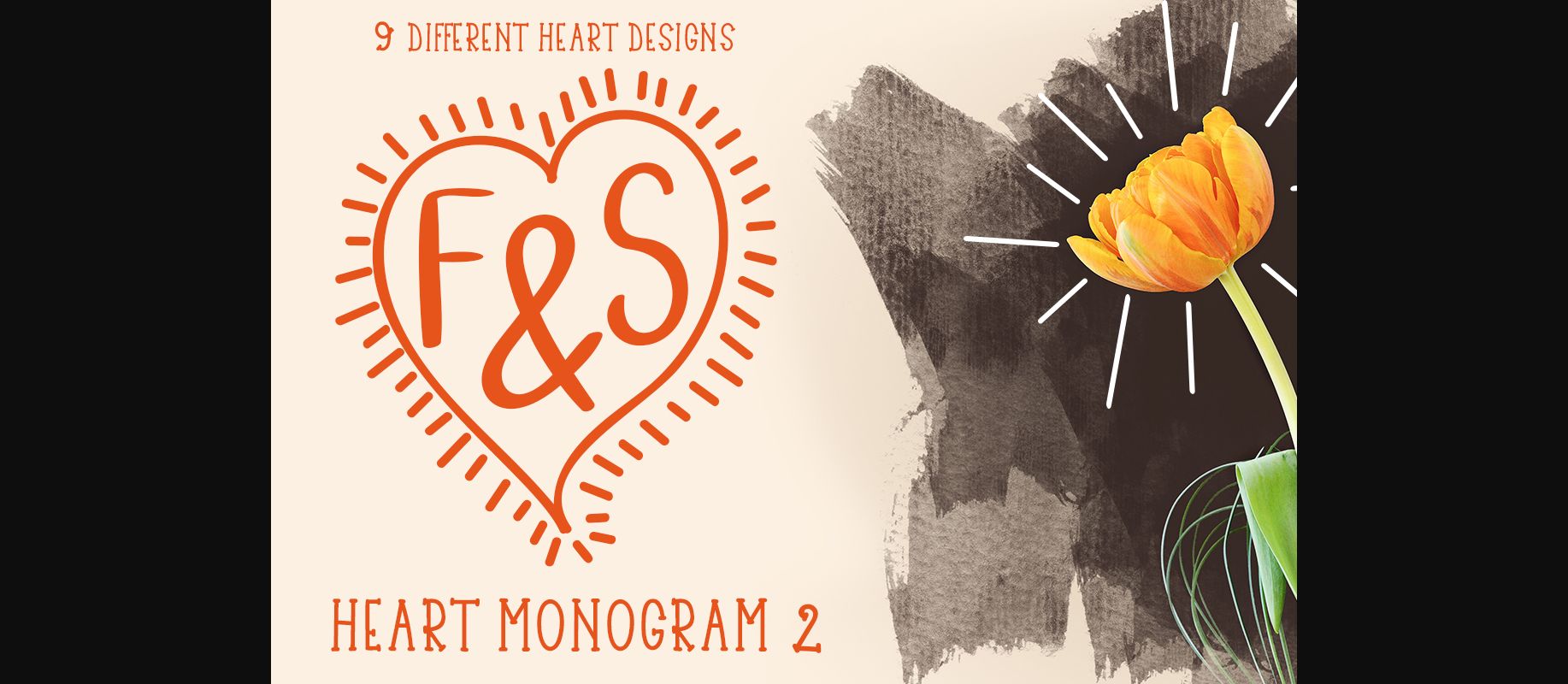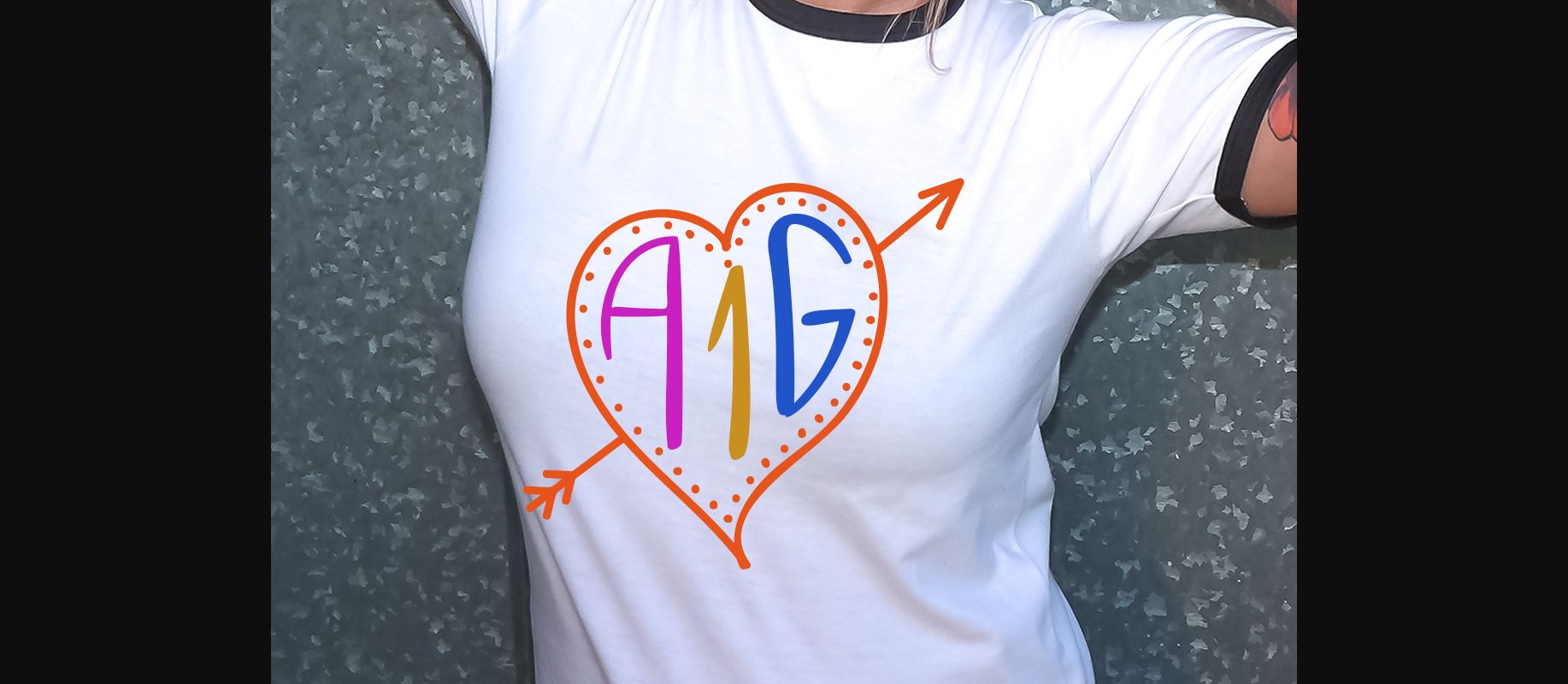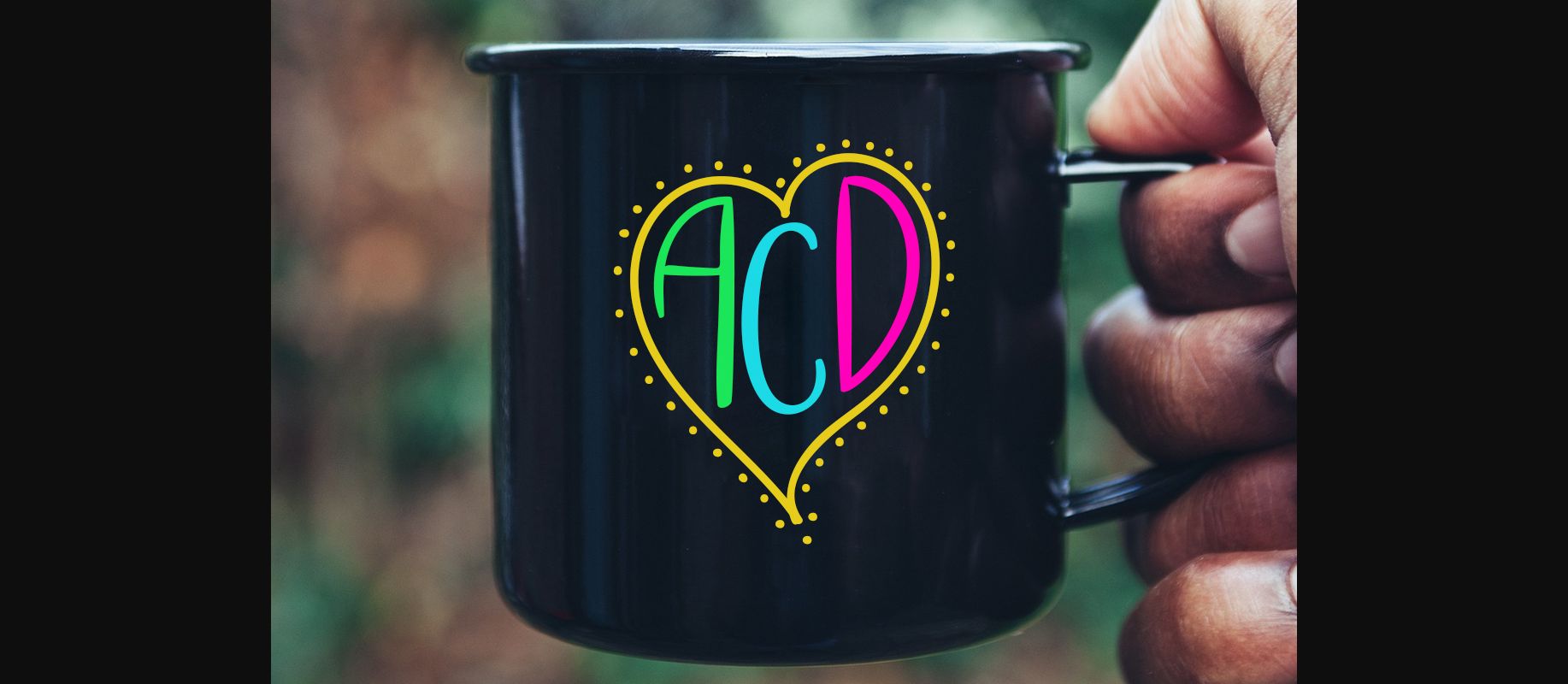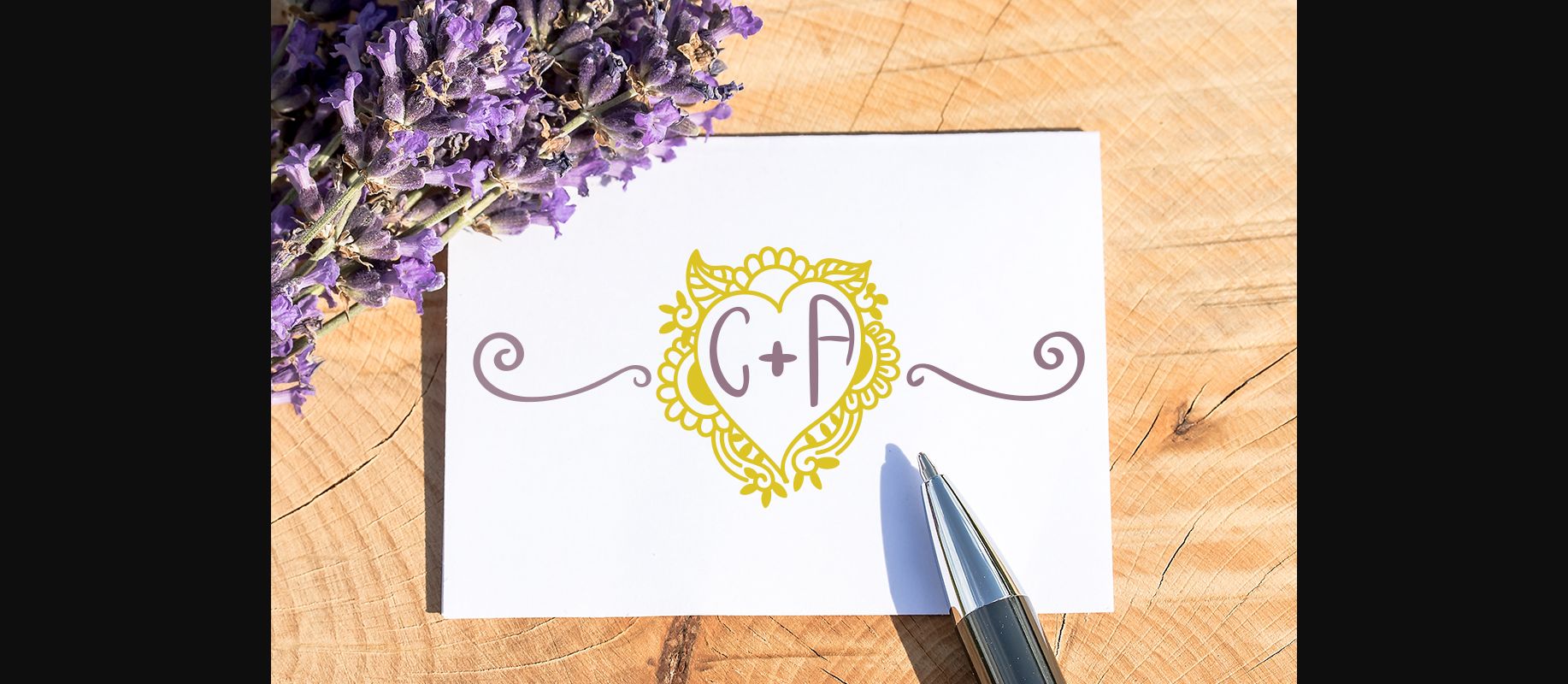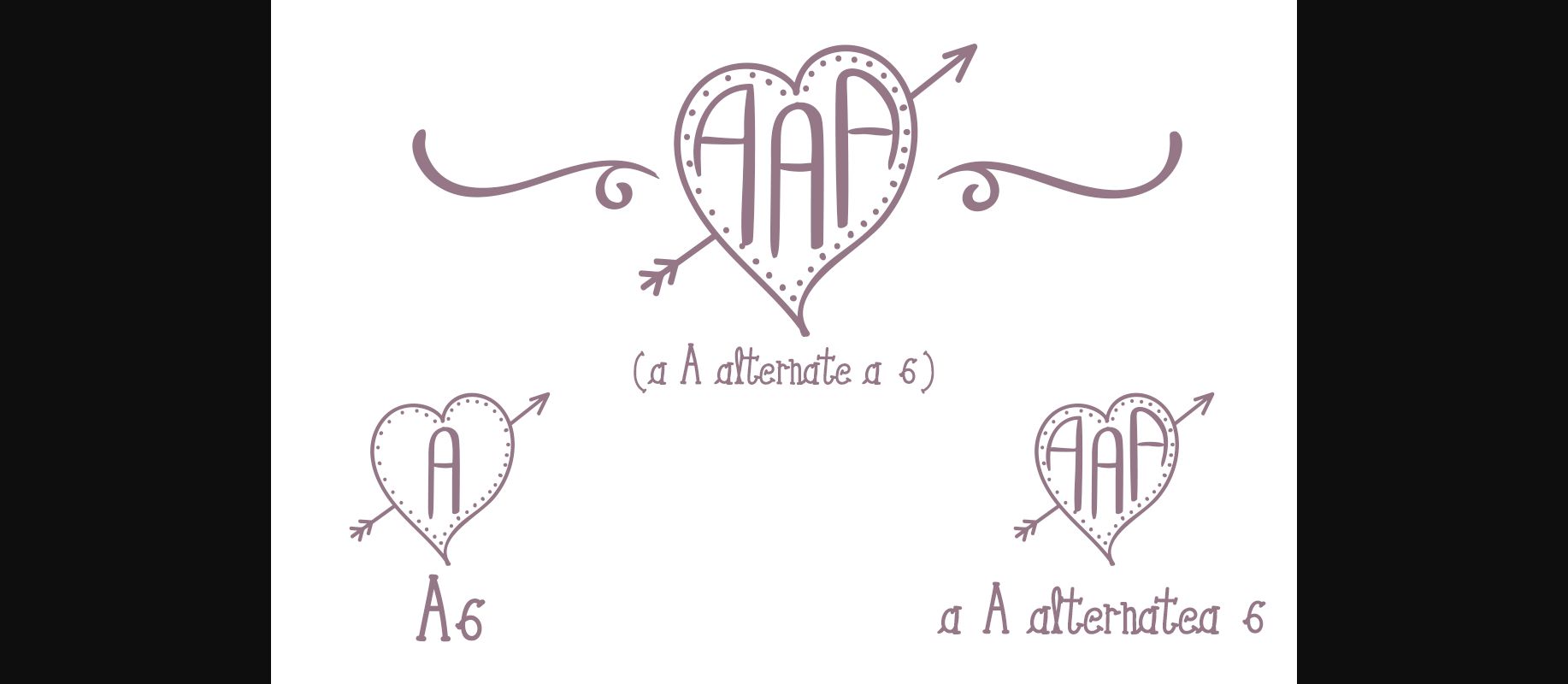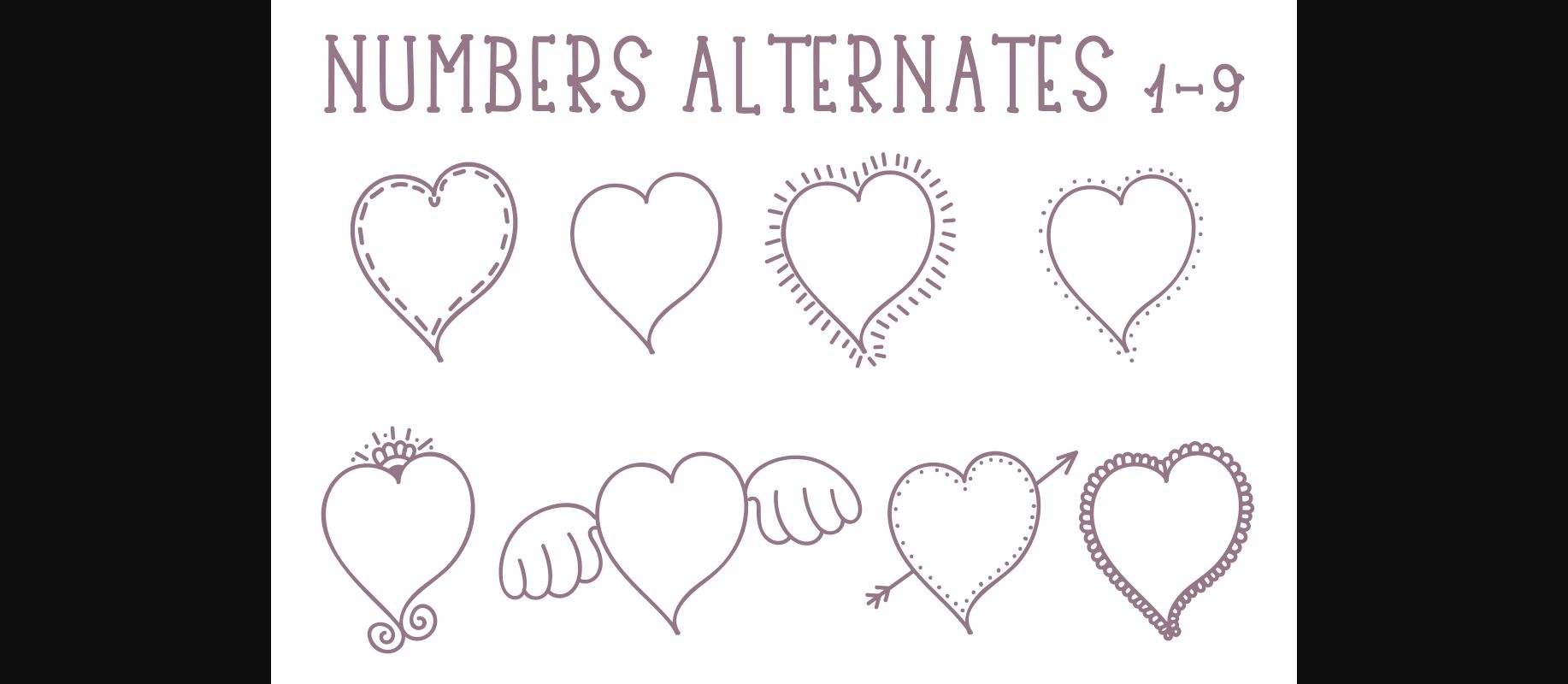
About Heart Mono Font
The Heart Mono 2 font is a heart shaped monogram font.
Choose any of the 9 designs and either add one single character in there, or add 3.
It’s a fun font that you will find yourself using over and over again. Because of the multitude of designs included, it’s very versatile and will always result in a lovely, playful heart-shaped monogram frame.